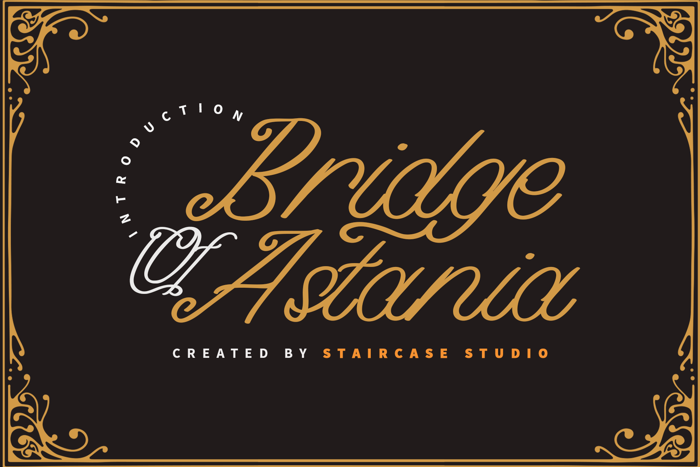
Bridge of Astania Font
Bridge of Astania font with script handwritten styles. A collection of letters and numbers suitable your projects also great for Logotype, Branding Design, Logo Design, Digital Lettering Arts, T-Shirt/Apparel, Poster, Magazine, Signs, Advertising Design, and any design needs.